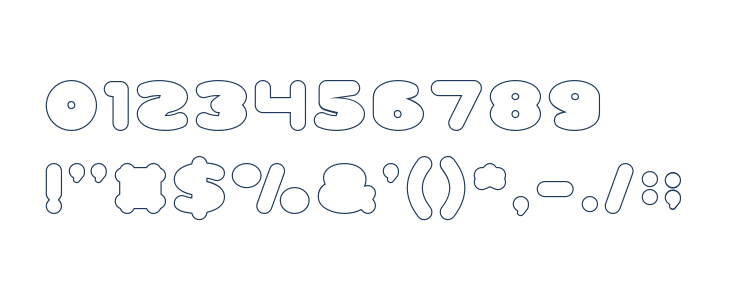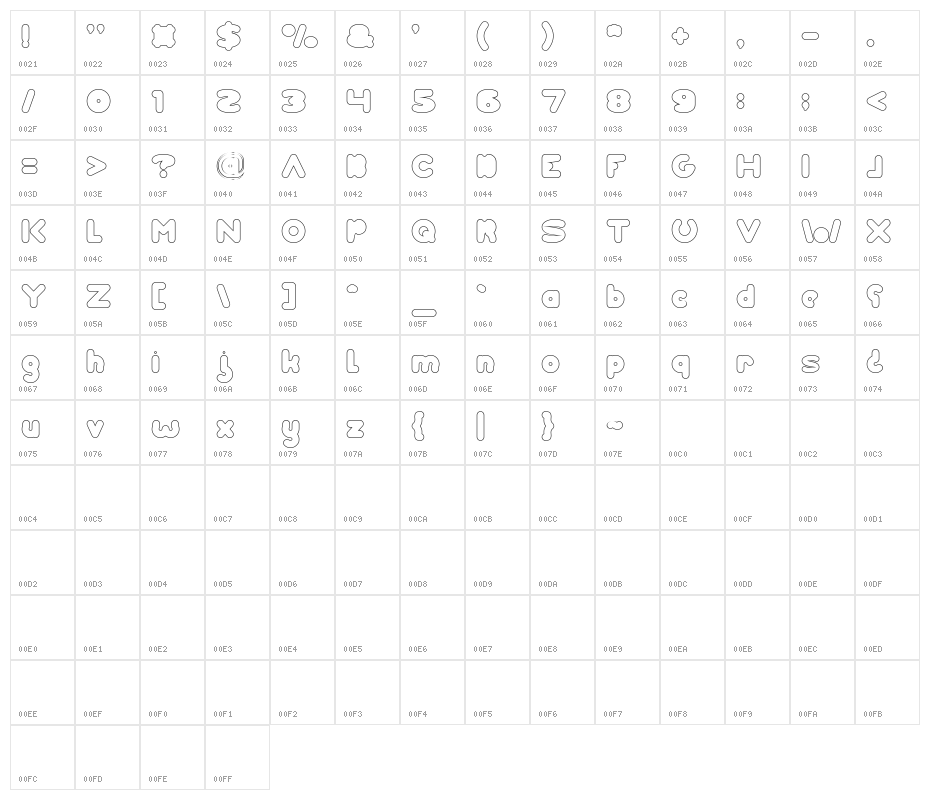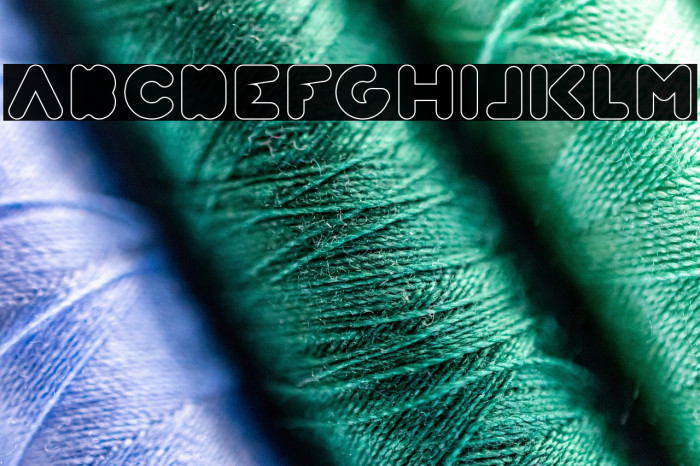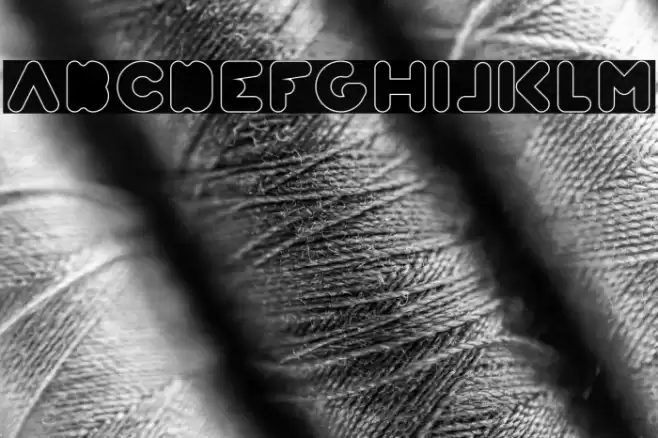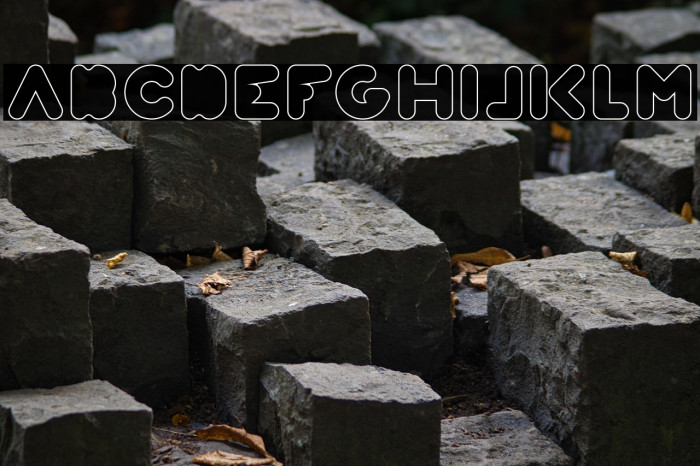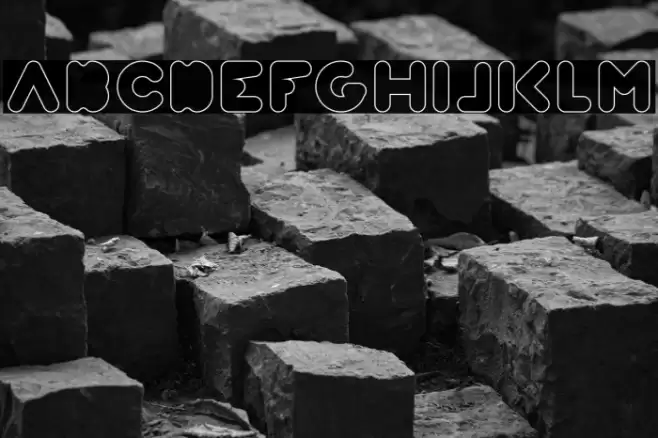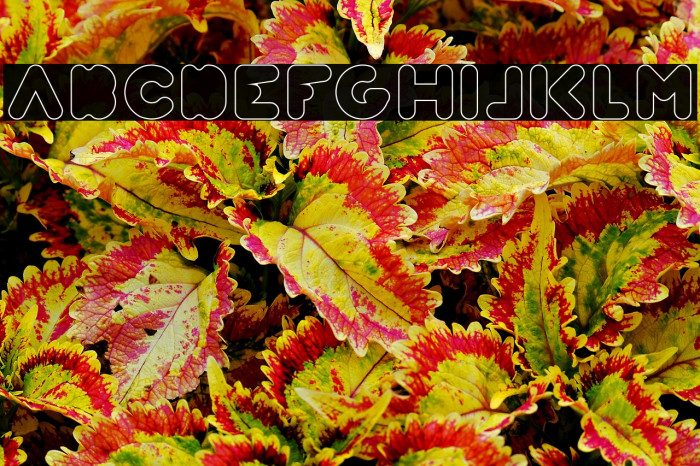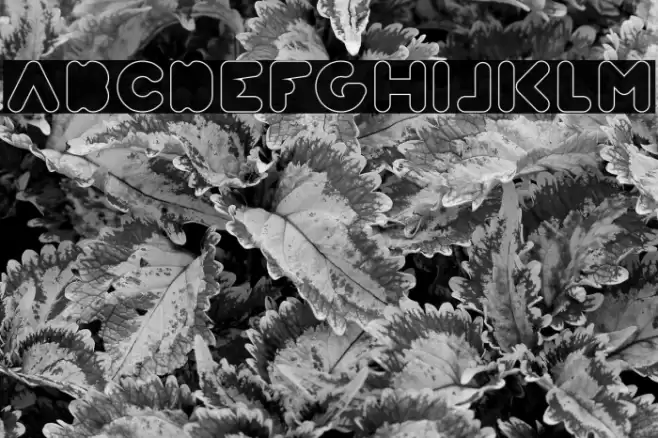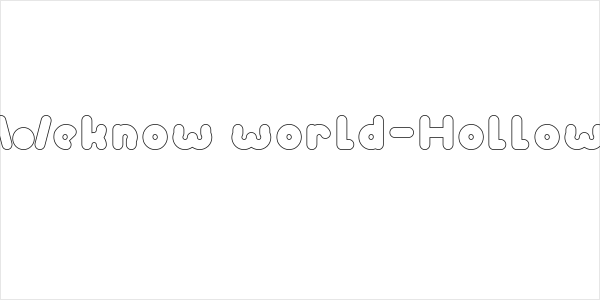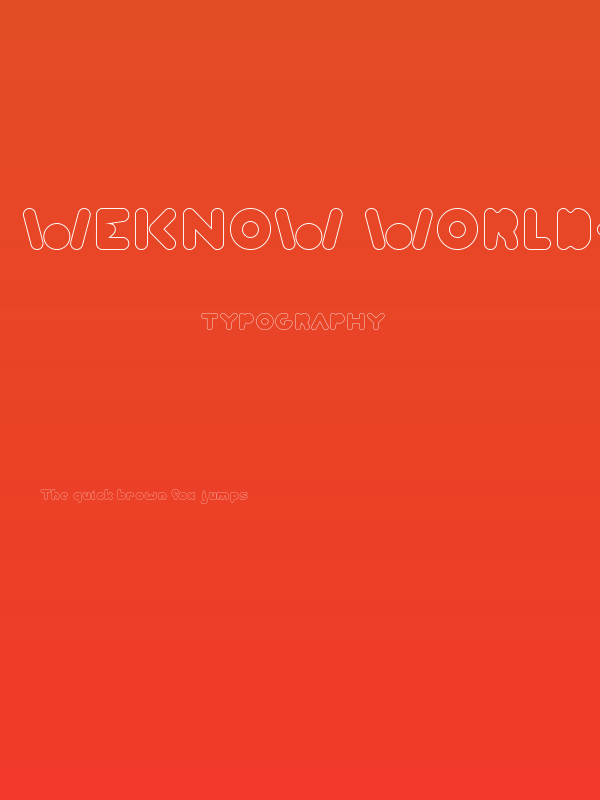
Weknow world-Hollow Font
Weknow world-Hollow Description
This playful and whimsical font features hollow, rounded characters with a consistent stroke width. The letters have a bubbly appearance, creating a sense of fun and lightheartedness. The uppercase and lowercase letters maintain a uniform style, with smooth curves and a slightly inflated look. Numbers and special characters follow the same design principles, ensuring a cohesive appearance across all elements. The font's open and airy design makes it suitable for projects that require a friendly and approachable aesthetic.
| Proposed Projects | Ideal for children's books, playful branding, party invitations, and casual posters. |